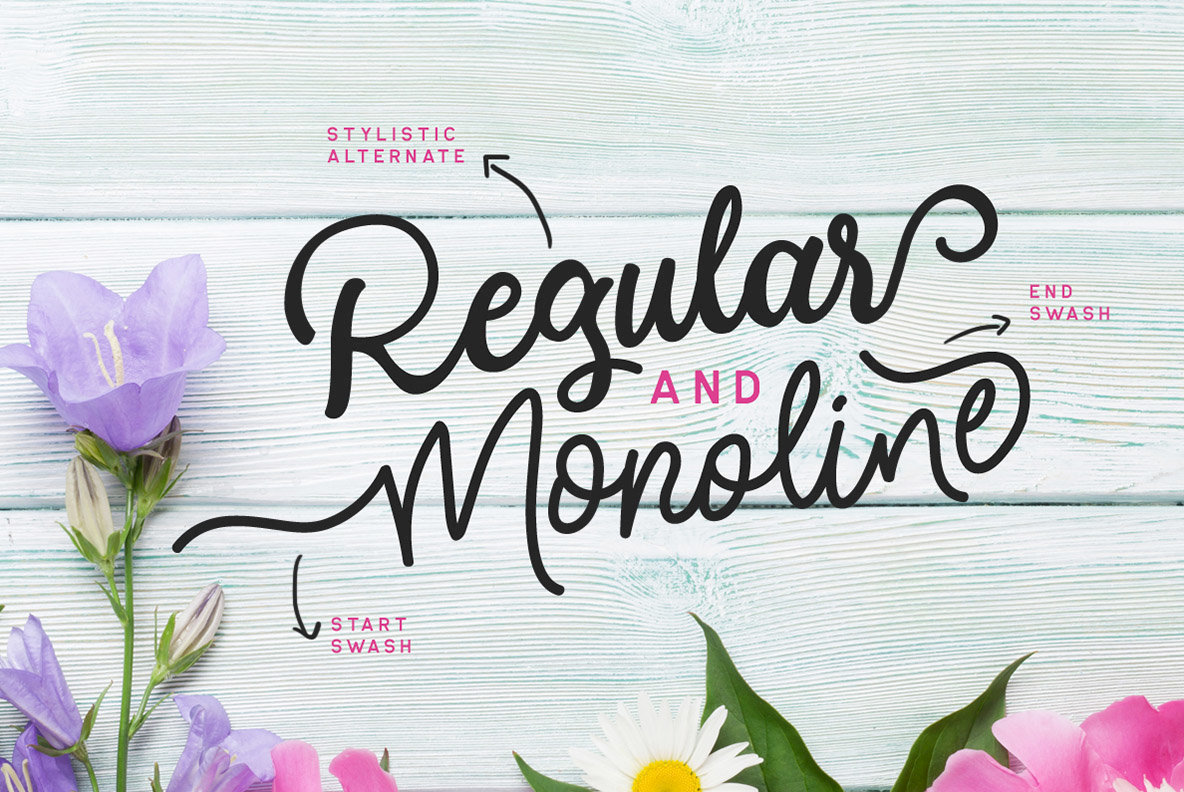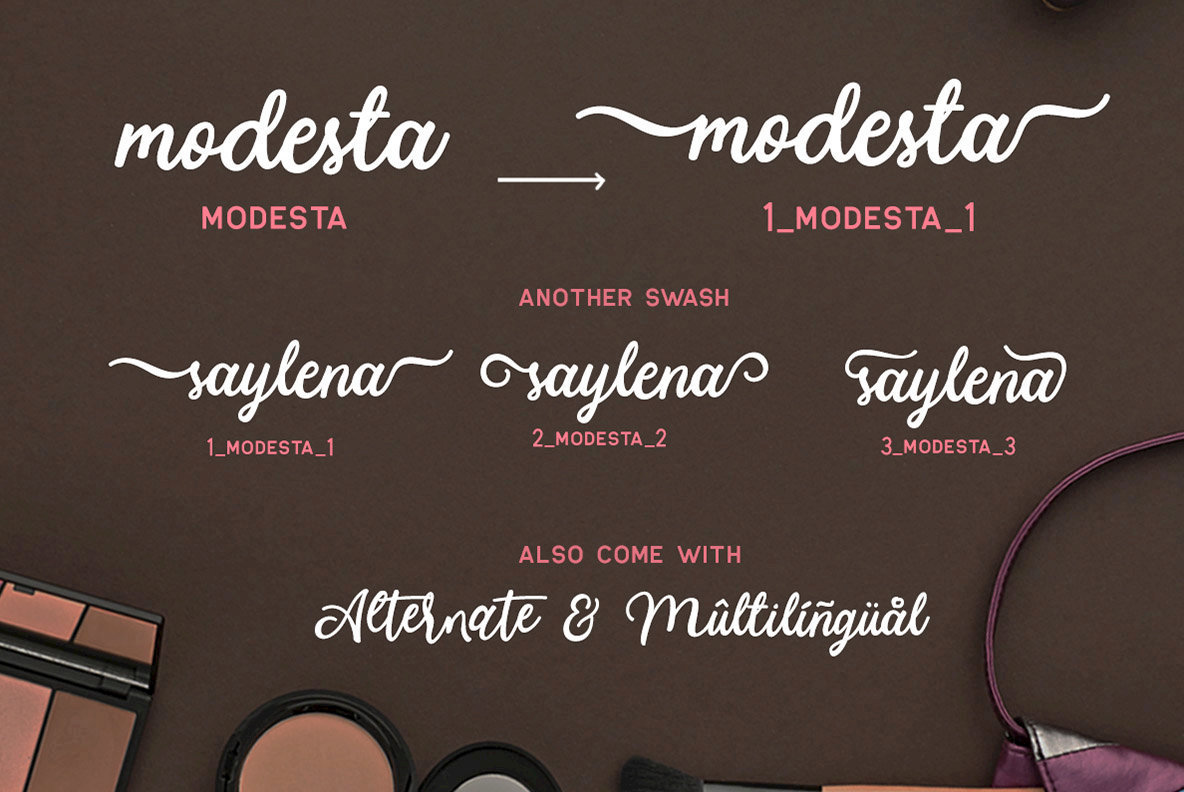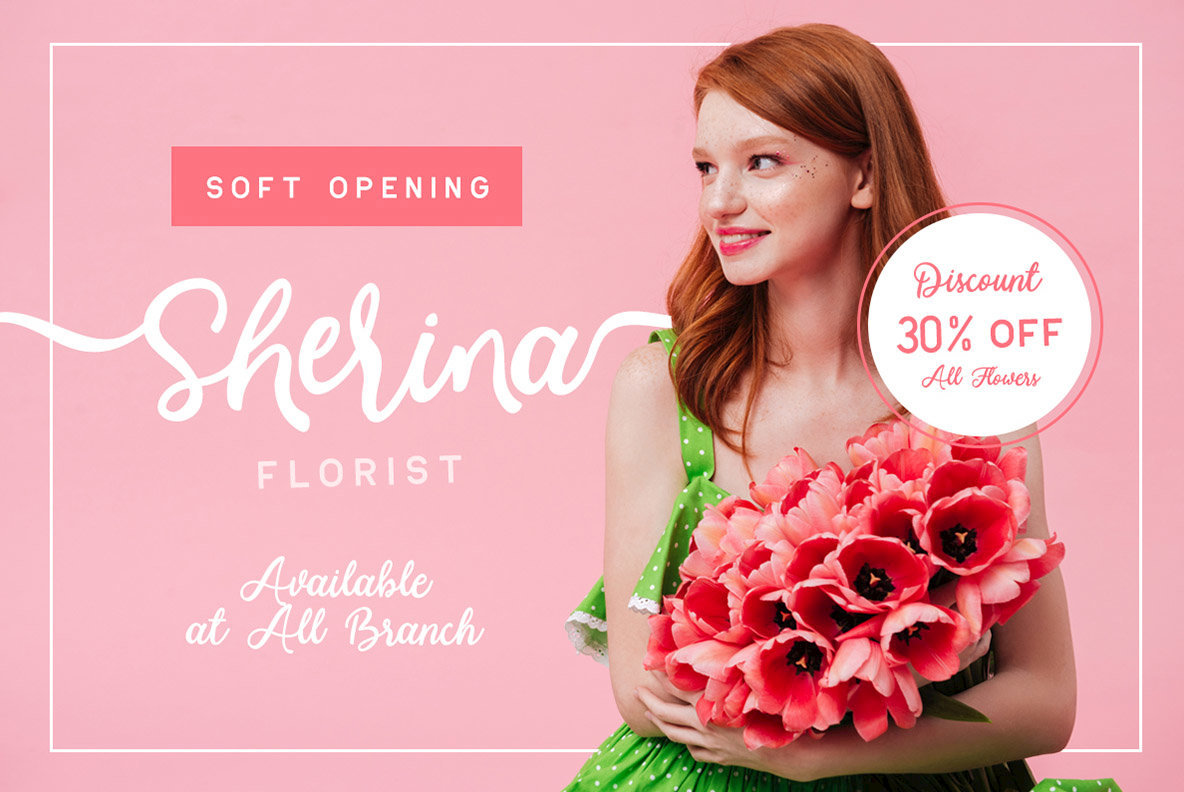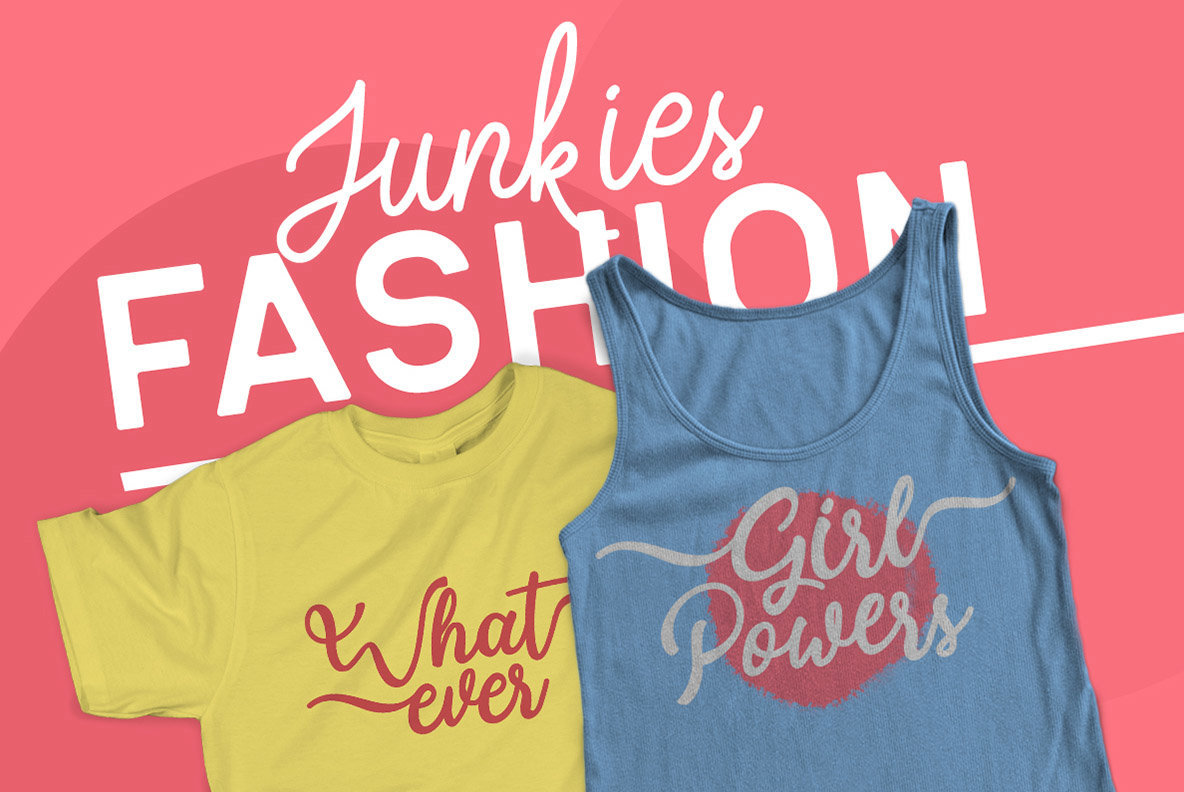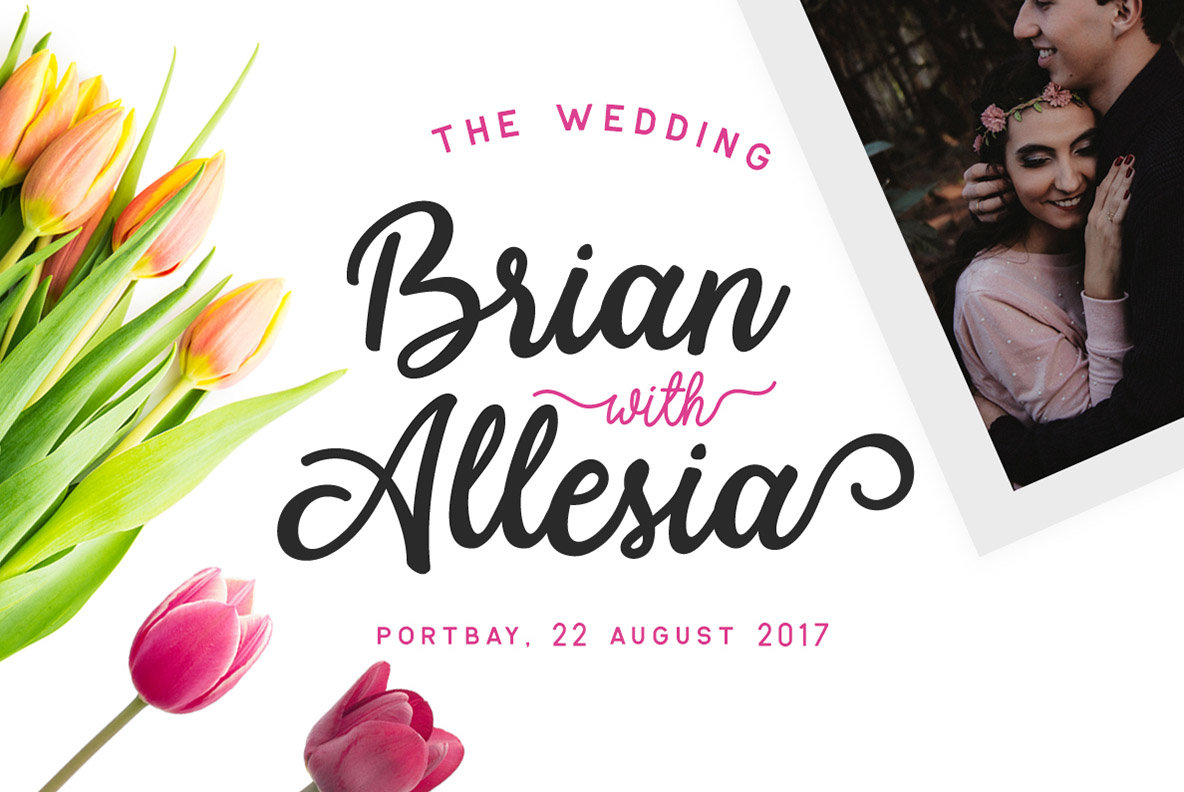
Modesta Script Font
Modesta Script captivates with its delightful blend of elegance and versatility, offering a font duo tailored for feminine and girly-themed projects. With two distinct styles—monoline and regular—this script allows graphic designers to refine their compositions with creativity and style.Modesta Script: A Charming Font Duo
Key Features